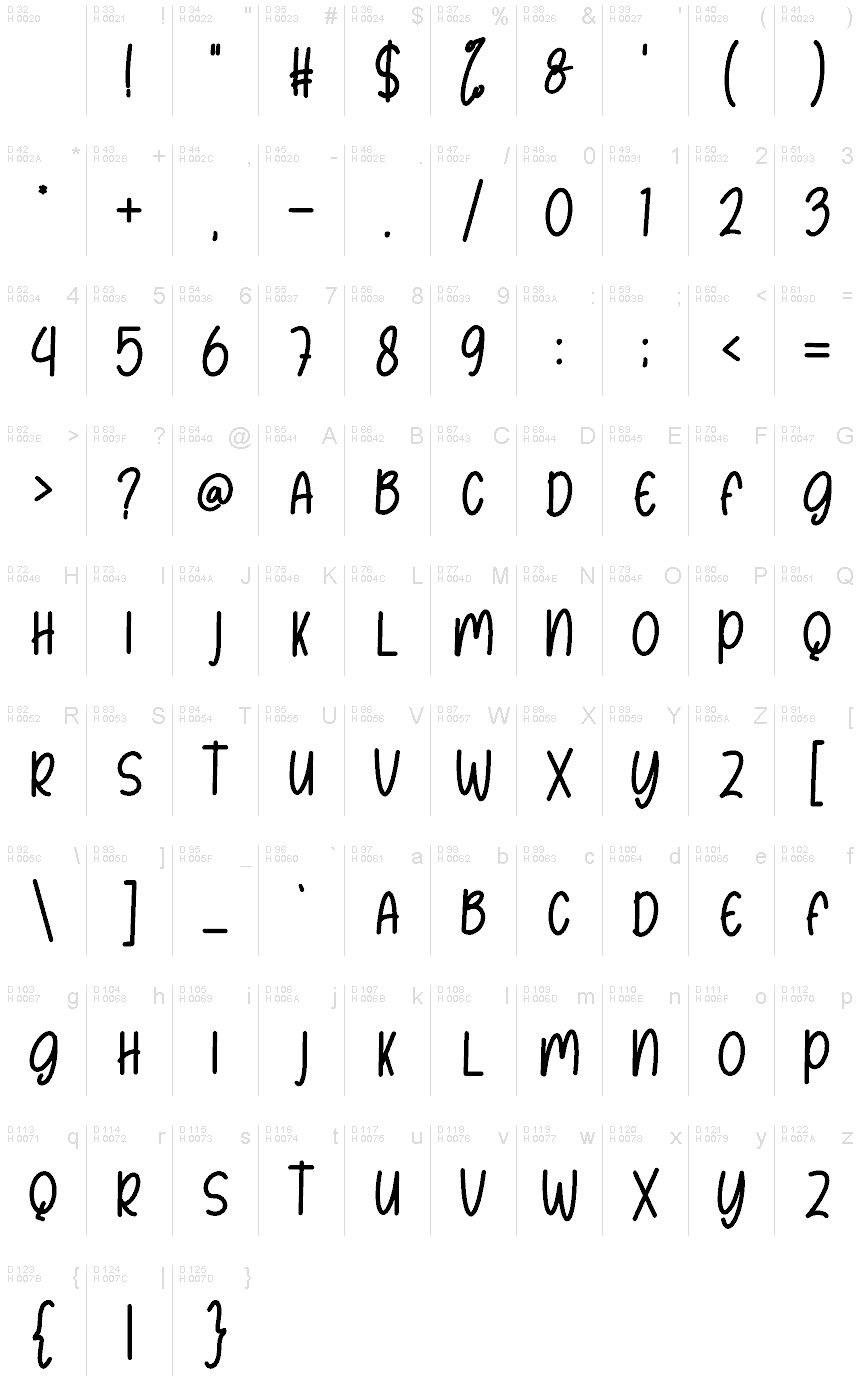
Rogera
Rogera font by Skiiller Studio is a free handwritten font with condensed width and modern script style. Rogera’s smooth, fluid, and organic lines are skillfully constructed to bring out the beauty of its curves and builds an easy rhythm for the text. With a casual elegant appearance, it offers an approachable aesthetic through its personal touch.
Use Rogera in invitation cards, posters, music covers, merchandise branding, images on social media platforms like Instagram or Pinterest (to name a few), quotations for blog posts and more. It suits t-shirt designs as well as upscale fashion branding and mags. Logos made with it look stunning!